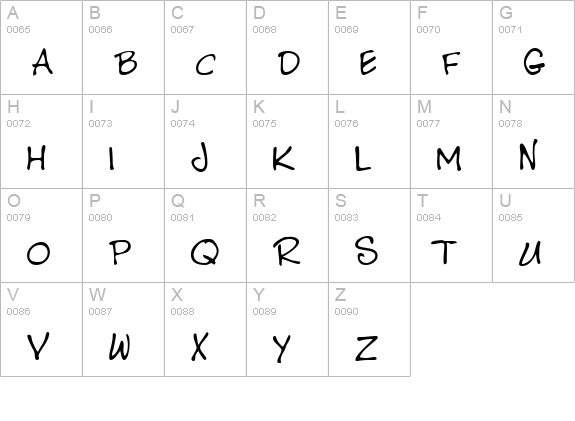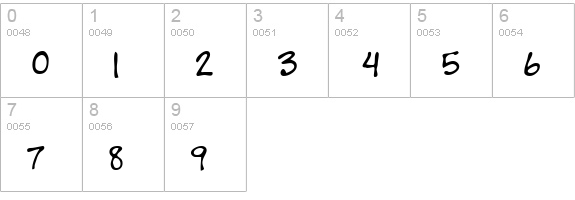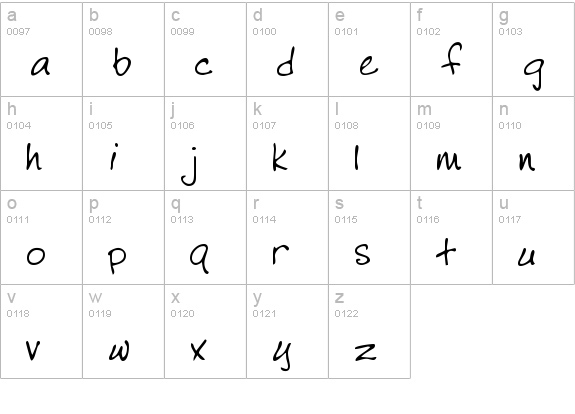
LibertysHand Regular Font Details
LibertysHand Regular is the standard, neutral variant in the LibertysHand typeface family \xE2\x80\x94 well suited to general body text, paragraphs, and standard typographic work.
LibertysHand Regular font is a beautifully crafted typeface that exudes elegance and sophistication. With its unique hand-drawn style and graceful curves, this font is perfect for adding a personal touch to your designs. Whether you're creating invitations, greeting cards, or branding materials, LibertysHand Regular font will surely make your projects stand out. The best part is that LibertysHand Regular font is completely free to download at FontsMarket.com. Now you can easily access this stunning font and use it in your creative endeavors without any cost. Embrace the beauty and versatility of LibertysHand Regular font and elevate your designs to new heights. Download it today and let your creativity flow freely!